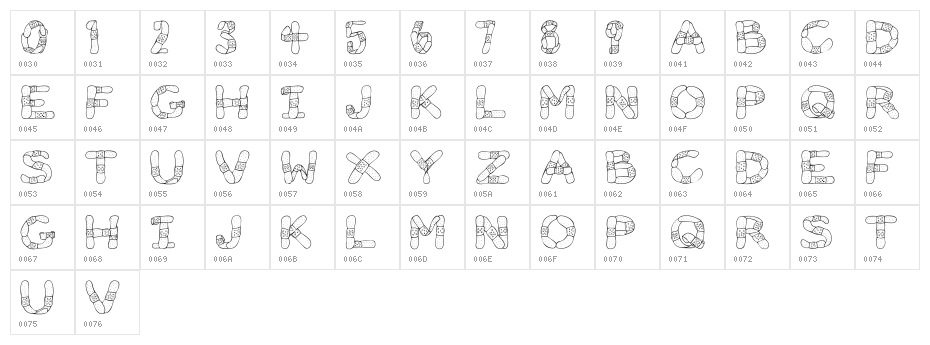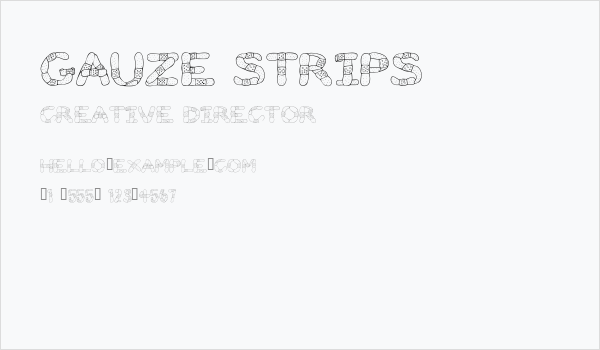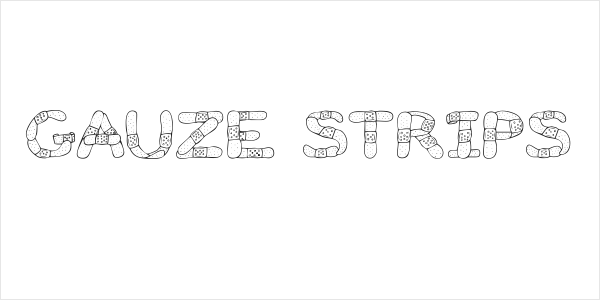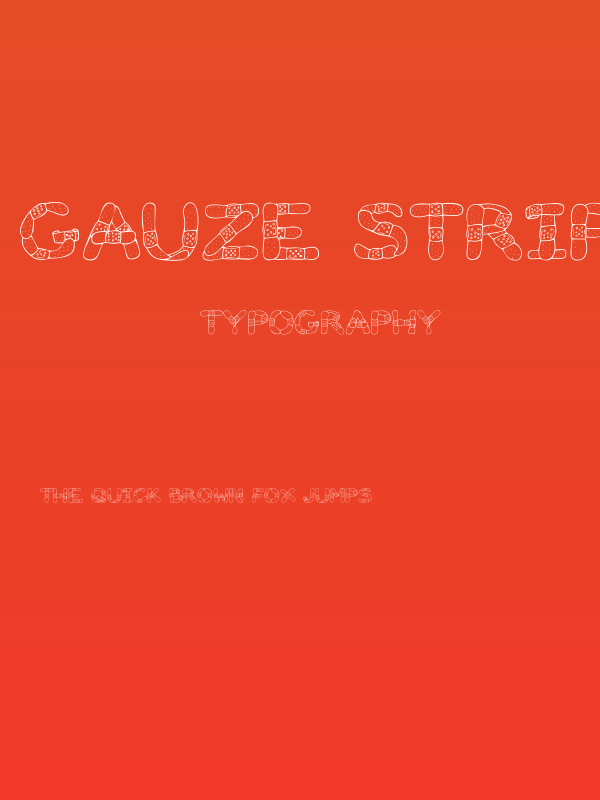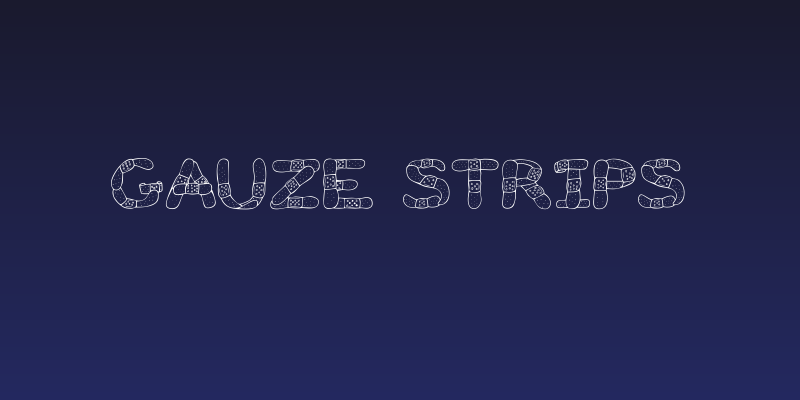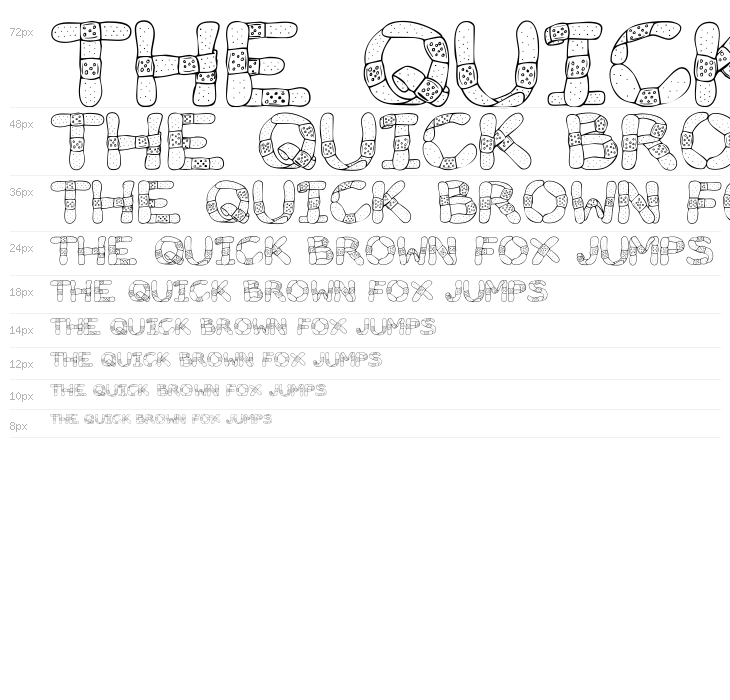
Gauze Strips Font
Gauze Strips Description
This playful and unique font features characters designed to resemble gauze strips or bandages, giving it a whimsical and lighthearted appearance. Each letter and number is crafted with a pattern that mimics the texture and look of medical bandages, complete with small dotted details that add to the authenticity of the design. The font maintains a consistent thickness throughout, with rounded edges that enhance its friendly and approachable style. It's perfect for projects that require a touch of humor or a medical theme, such as children's books, health-related campaigns, or playful branding.
| Proposed Projects | Children's books, health campaigns, playful branding, educational materials. |